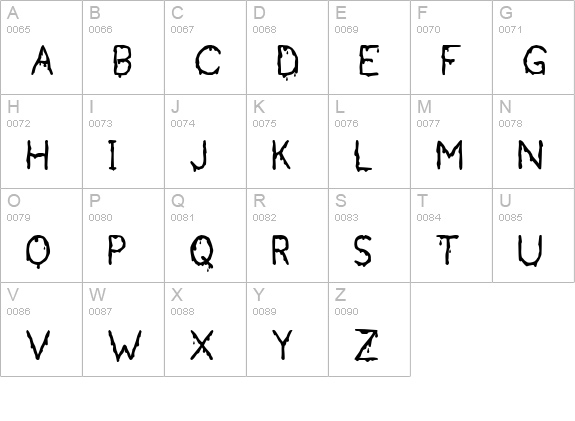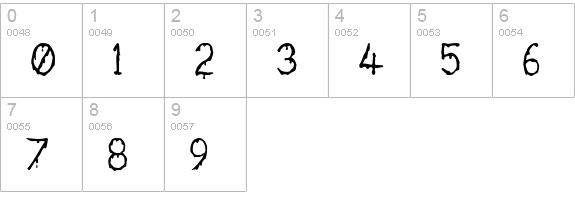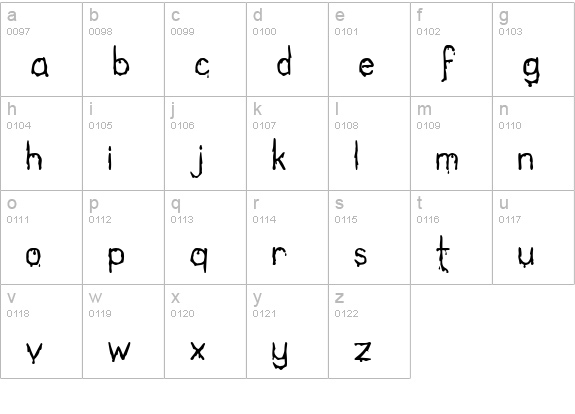
Bloodgutter 2000 Font Details
Bloodgutter 2000 font is a bold and edgy typeface that exudes a sense of power and strength. With its sharp, jagged edges and unique design, this font is perfect for adding a touch of grit and intensity to your projects. Whether you're creating posters, logos, or social media graphics, Bloodgutter 2000 font will make a bold statement and grab attention. The best part? Bloodgutter 2000 font is available for free download at FontsMarket.com. You can easily add this striking font to your collection and use it in a variety of creative projects without any cost. Don't miss out on the opportunity to enhance your designs with the impactful style of Bloodgutter 2000 font. Download it today and unleash your creativity!